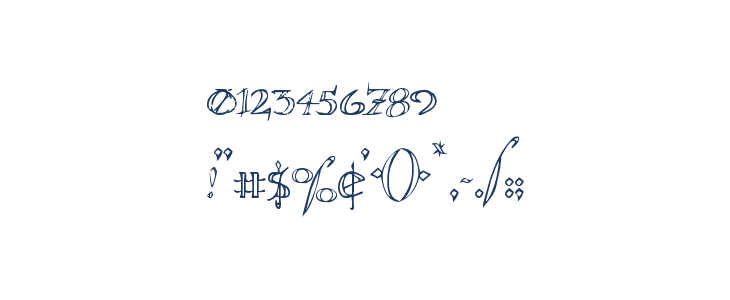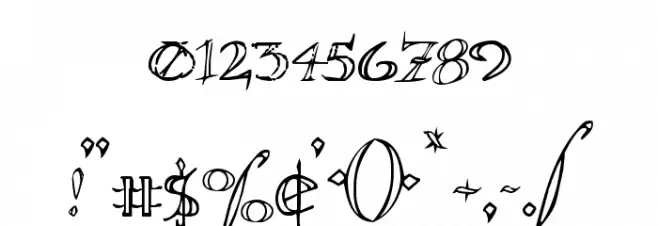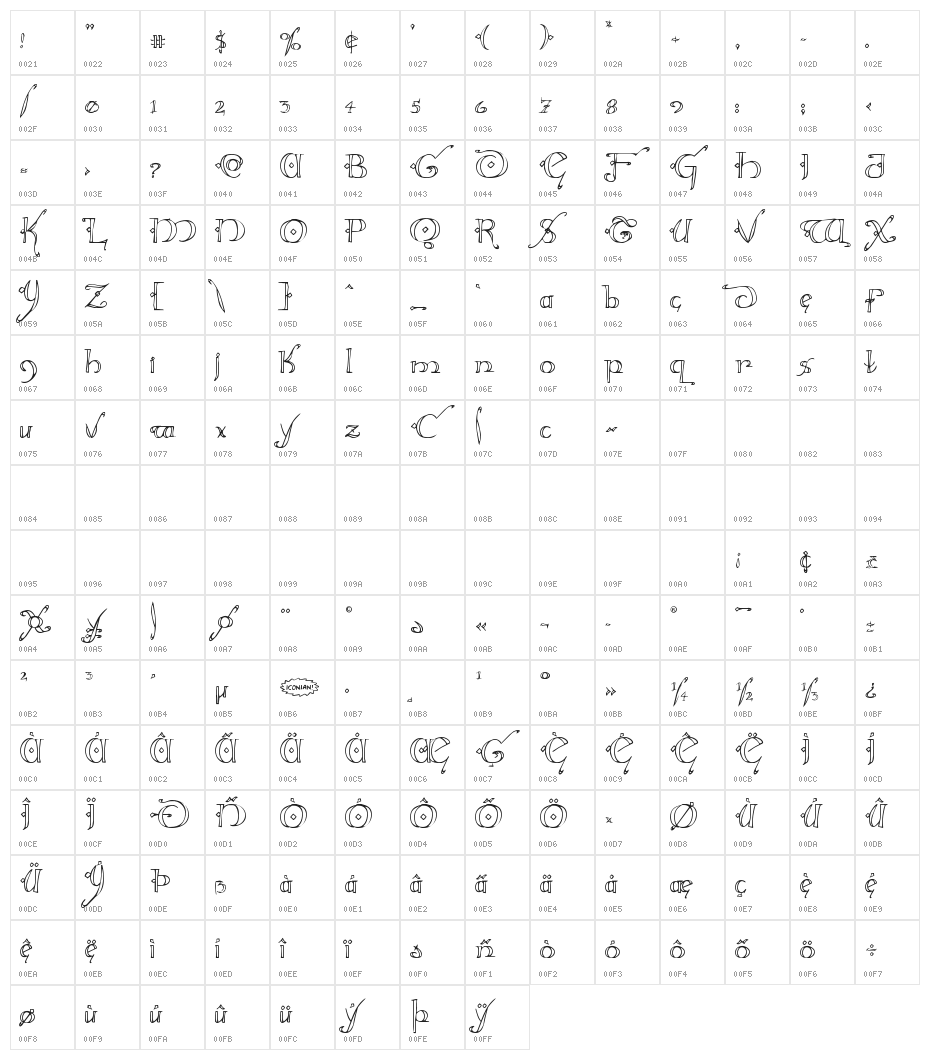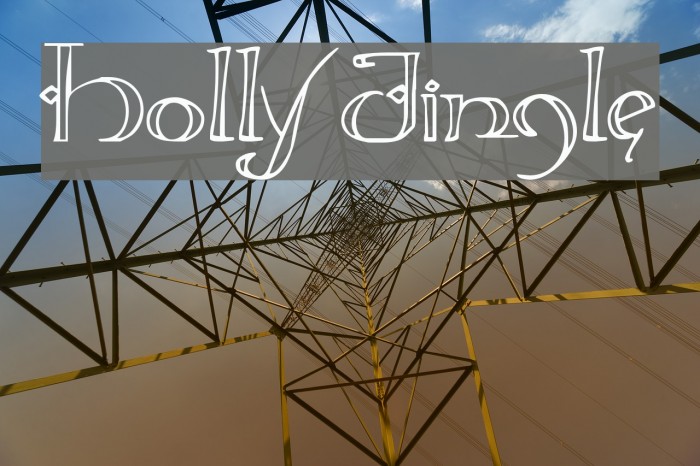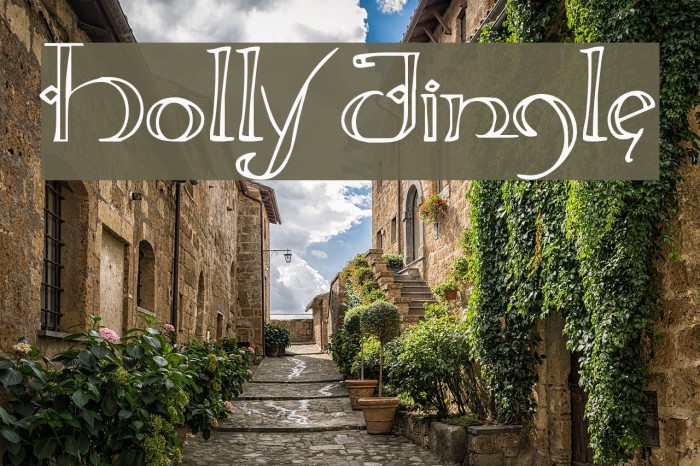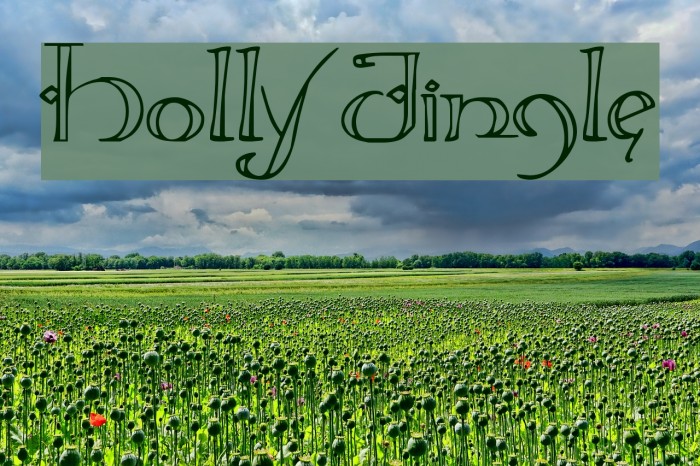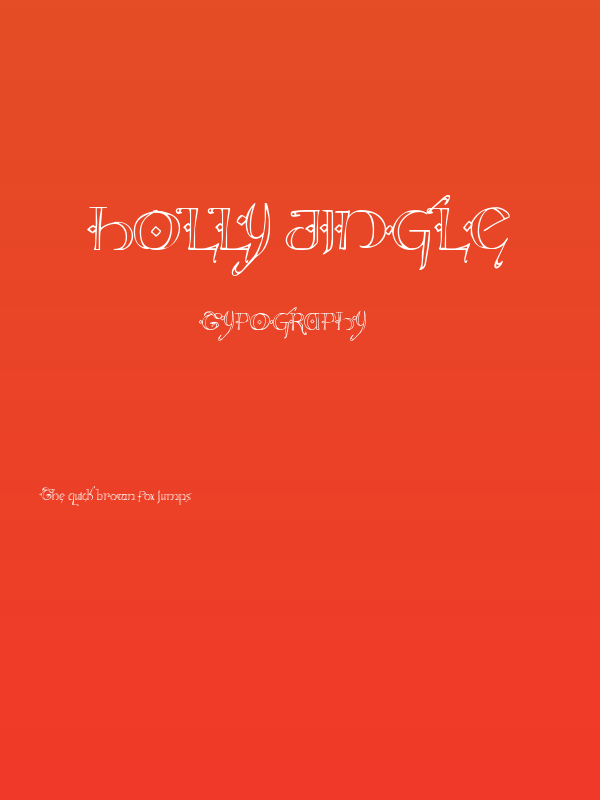
Holly Jingle Font
Holly Jingle Description
This font features a whimsical and decorative style, characterized by its intricate and playful design elements. Each letter is adorned with unique flourishes and embellishments, giving it a festive and ornate appearance. The characters are crafted with a sense of movement and flair, making them stand out with their artistic curves and loops. The font maintains a consistent stroke width, ensuring readability while still offering a distinct and eye-catching look. Its decorative nature makes it ideal for projects that require a touch of elegance and creativity.
| Use Case | Headlines, Logos, Decorative text |
| Proposed Projects | Ideal for holiday cards, festive invitations, decorative posters, and creative branding projects. |